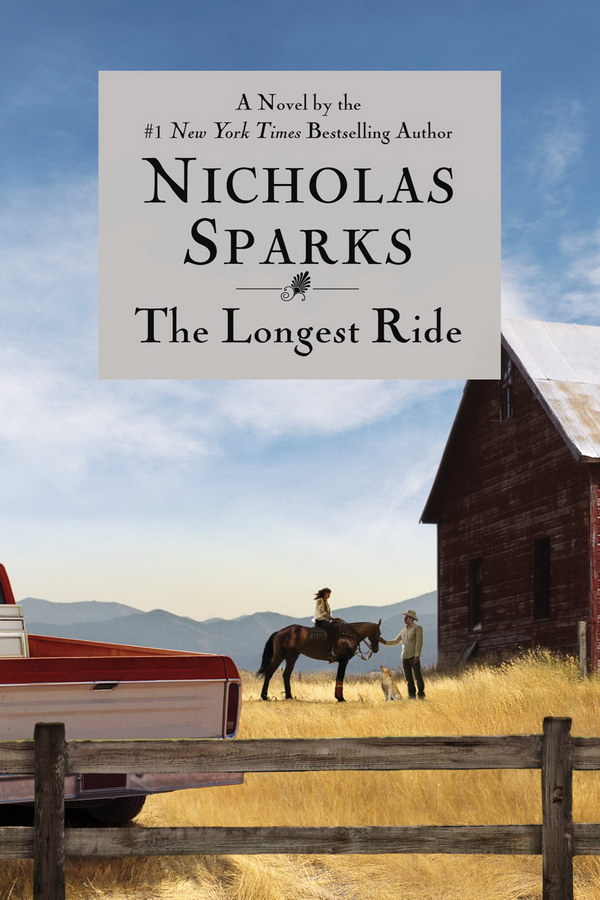
The Longest Ride Font
The book cover title "The Longest Ride" is most likely in Nicolas Cochin Regular font, which was created by George Peignot and named after the French engraver Charles Nicolas Cochin. Additional information about the typeface is available here.